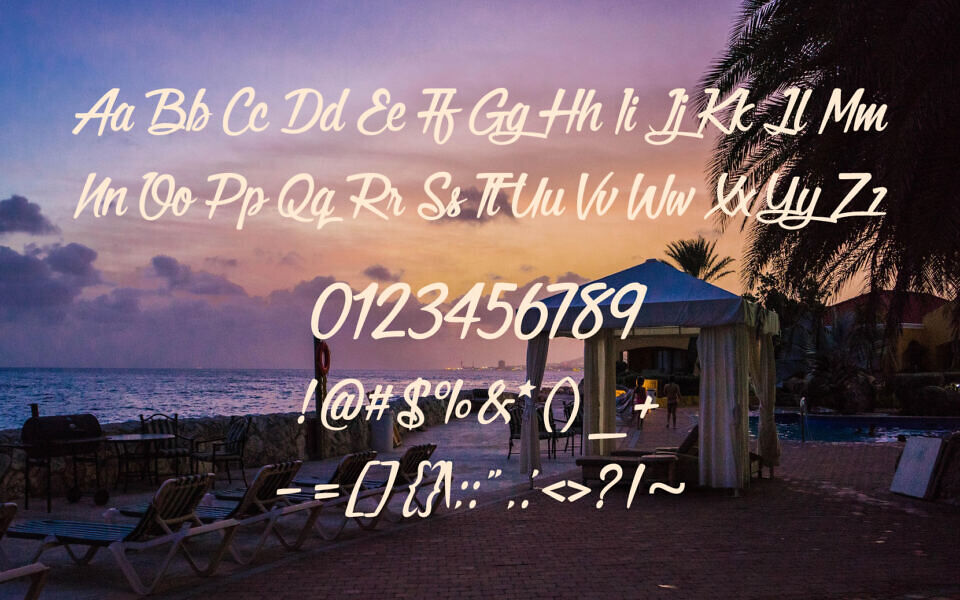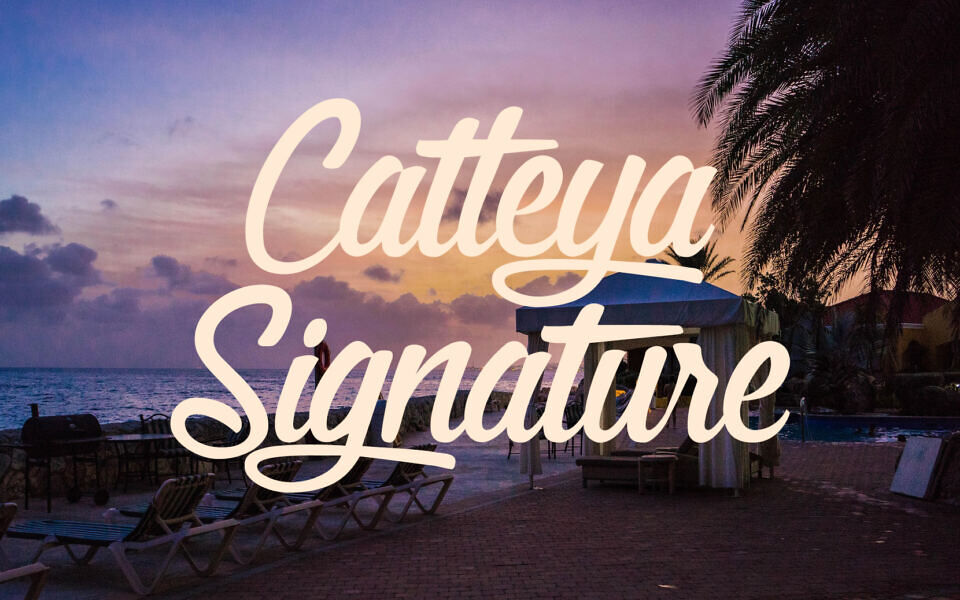
The Catleya Signature is a stylish, handcrafted script typeface designed to exude elegance and sophistication. Featuring smooth, flowing letterforms with a natural, handwritten feel, it includes a full set of uppercase and lowercase letters, numbers, and punctuation.
Its delicate, cursive style is perfect for logos, invitations, branding, and personal projects, offering a personal and authentic touch. Catleya Signature font stands out with its graceful curves and versatile design, making it ideal for adding a chic, signature-like flair to any creative endeavor.